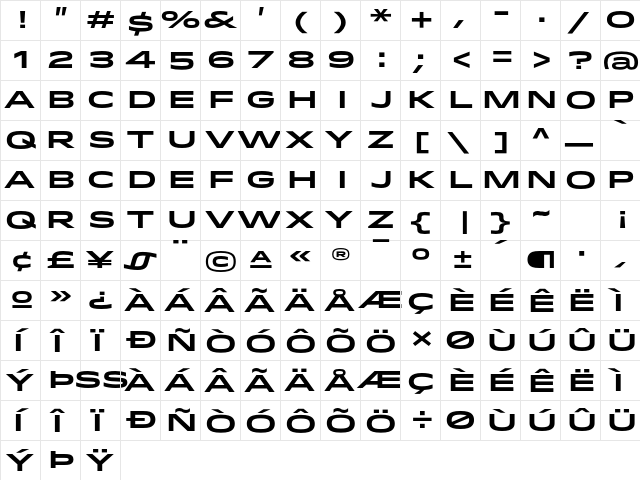
Idlewild Bold
| Foundry | Hoefler & Frere-Jones |
| Designer | Hoefler & Frere-Jones |
Design Context for Idlewild Typeface
Idlewild takes a measured approach to typography — its balanced proportions and neutral character make it a reliable workhorse for both digital and print work. The heavy weight commands attention and anchors typographic hierarchies.